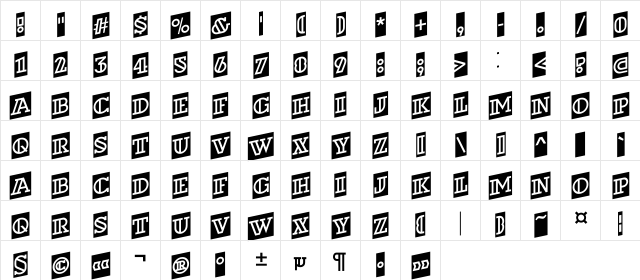
a_DexterDecorCmUp Regular
Design Context for a_DexterDecorCmUp Typeface
a_DexterDecorCmUp is a composed and adaptable typeface that performs quietly and consistently across a wide range of design contexts.